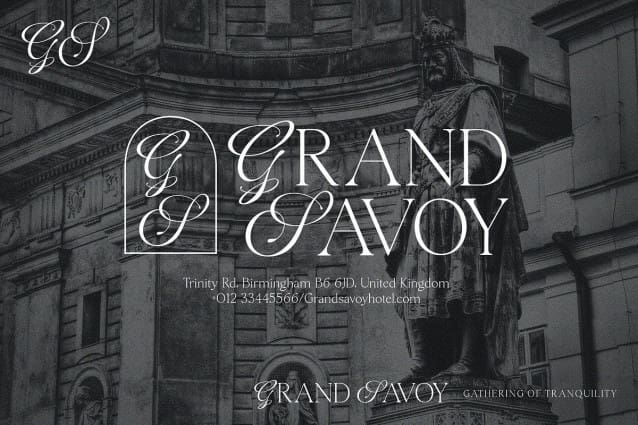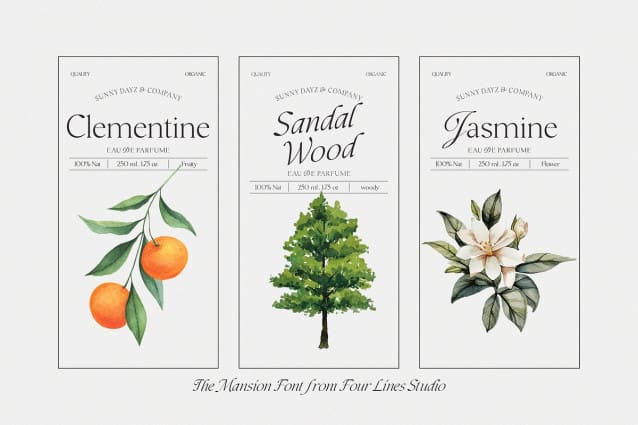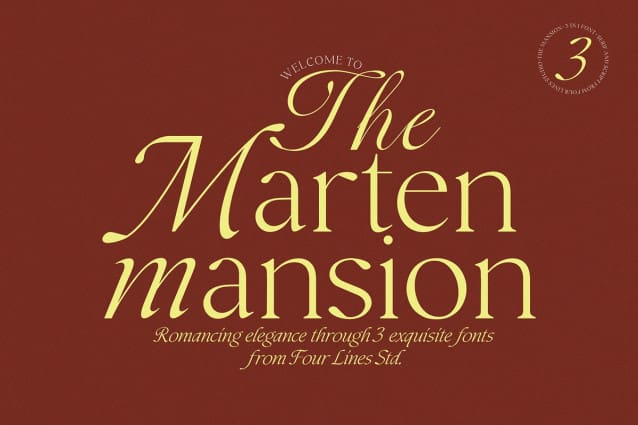
The Marten Mansion Font
The Marten Mansion Font, a font family that seamlessly integrates serif and script styles. Available in three variations—Regular, Italic, and Script—this font family combines the elegance of serif typography with the refined beauty of calligraphy.
The Regular and Italic styles offer clean and timeless readability. The Script variant enhances projects with its graceful, calligraphic charm. Ideal for a range of applications, The Marten Mansion is perfect for elegant posters, refined social media content, eye-catching thumbnails, professional branding, and memorable logos.